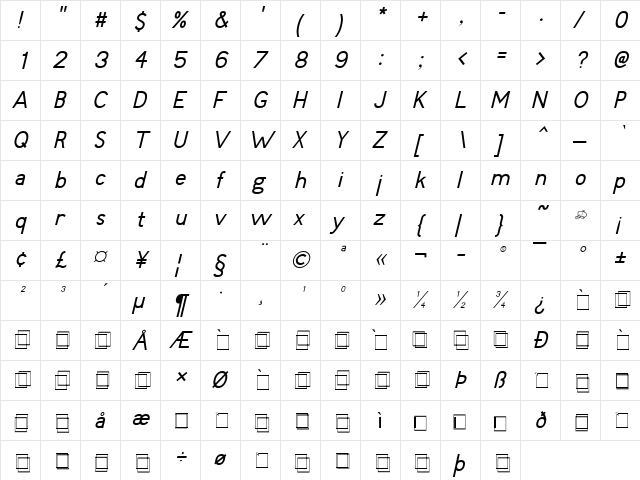
Fudd Italic
Design Context for Fudd Typeface
Fudd offers clean, dependable letterforms without strong stylistic allegiance, making it a practical choice for designers who need flexibility. Its italic angle brings a sense of urgency and motion to the letterforms.
Pro Tip: Use Fudd for emphasis, pull quotes, and subheadings where its slanted energy can add rhythm to the layout.